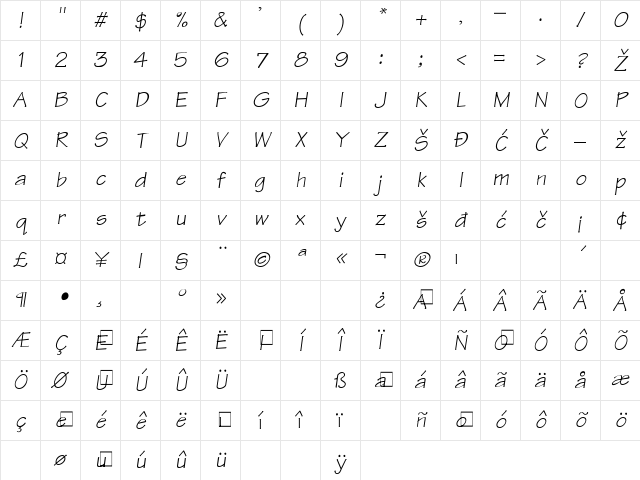
0Tecton1 Regular
Design Context for 0Tecton1
0Tecton1 is a composed and adaptable typeface that performs quietly and consistently across a wide range of design contexts.
Pro Tip: Use 0Tecton1 in both headline and body roles to test its range before committing to a single application.